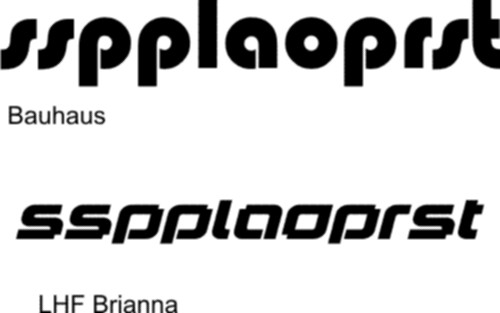
Posted by Marcella Ross on 7 July 2008 at 14:16Only me again …………. looking for a font suggestion. I need a font that looks tubular ……………. square but tubular (if you know what I mean)
It’s for a fabrications company whose logo looks a bit like pipes. I don’t need to replicate this just something vaguely similar.😕 oh I wish it was friday …………… (!)
Marcella,
What about VAG Rounded. Simple, but nice (a bit like me).
My camera battery is flat so I can’t photograph this and upload it
VAG Rounded isn’t square enough, I’d thought of that. Copperplate is nowhere near what I need. It’s very like a pipe, but square in shape.
Oh, I’m not describing this well am I? 😕
If you could imagine a drainpipe bent into the shape of an F the the only rounded part is the top left corner ………..should I just go back to bed?????? 🙁
Bauhaus is waaaaaaaaaay too rounded. The other is too fussy.
It’s dead simple, very square in shape but rounded at the corners.
Oh, this is driving me nuts. 😕 :lol1: 😕 :lol1:
Bank Gothic isn’t rounded at the corners ………… it’s too sharp.
I think I’m gonna give up on this. If I could upload a photo you guys could probably have sussed it right away.
Worst thing about this is that I’ve done this before and lost the file ….. 😳 😳 😳 and can’t remember what font I used. 😥 😥 😥 😥
that’s better Warren!!!! That’s the closest yet. I could fatten that up I suppose as it’s too thin. But the shape is much better. 🙂
Warren any chance you could type out
FSL FABRICATIONS LTD
in that font for me please? 🙂